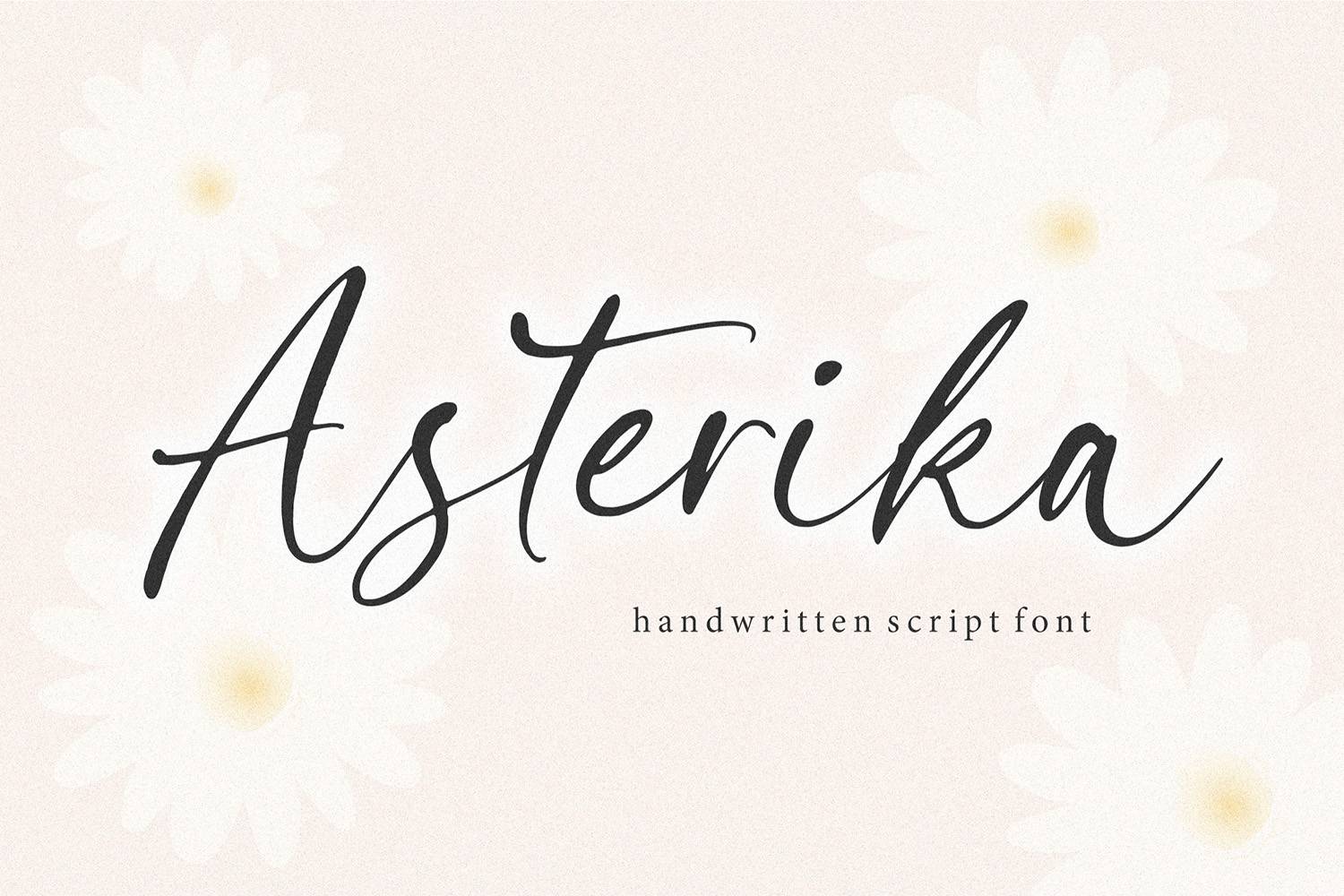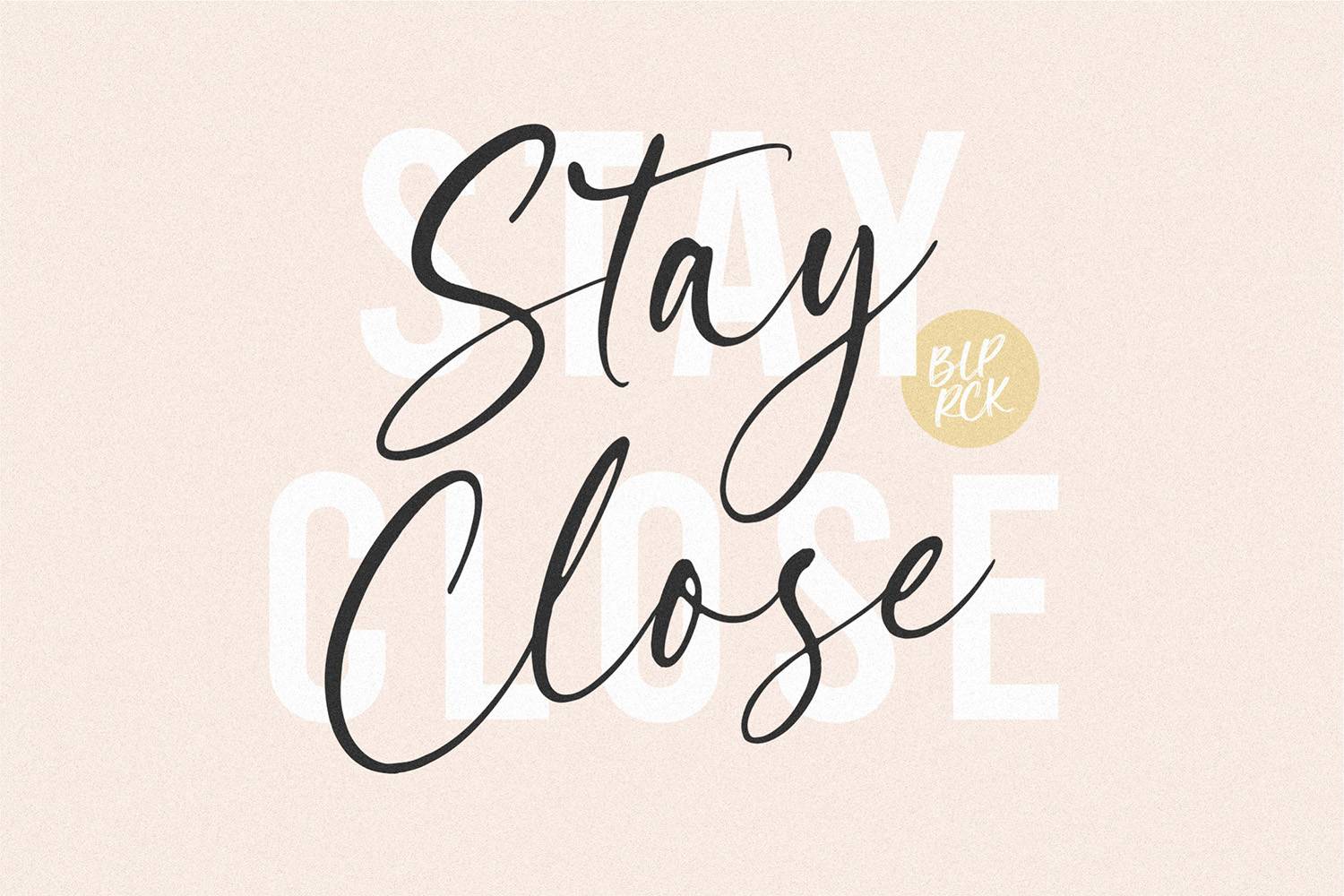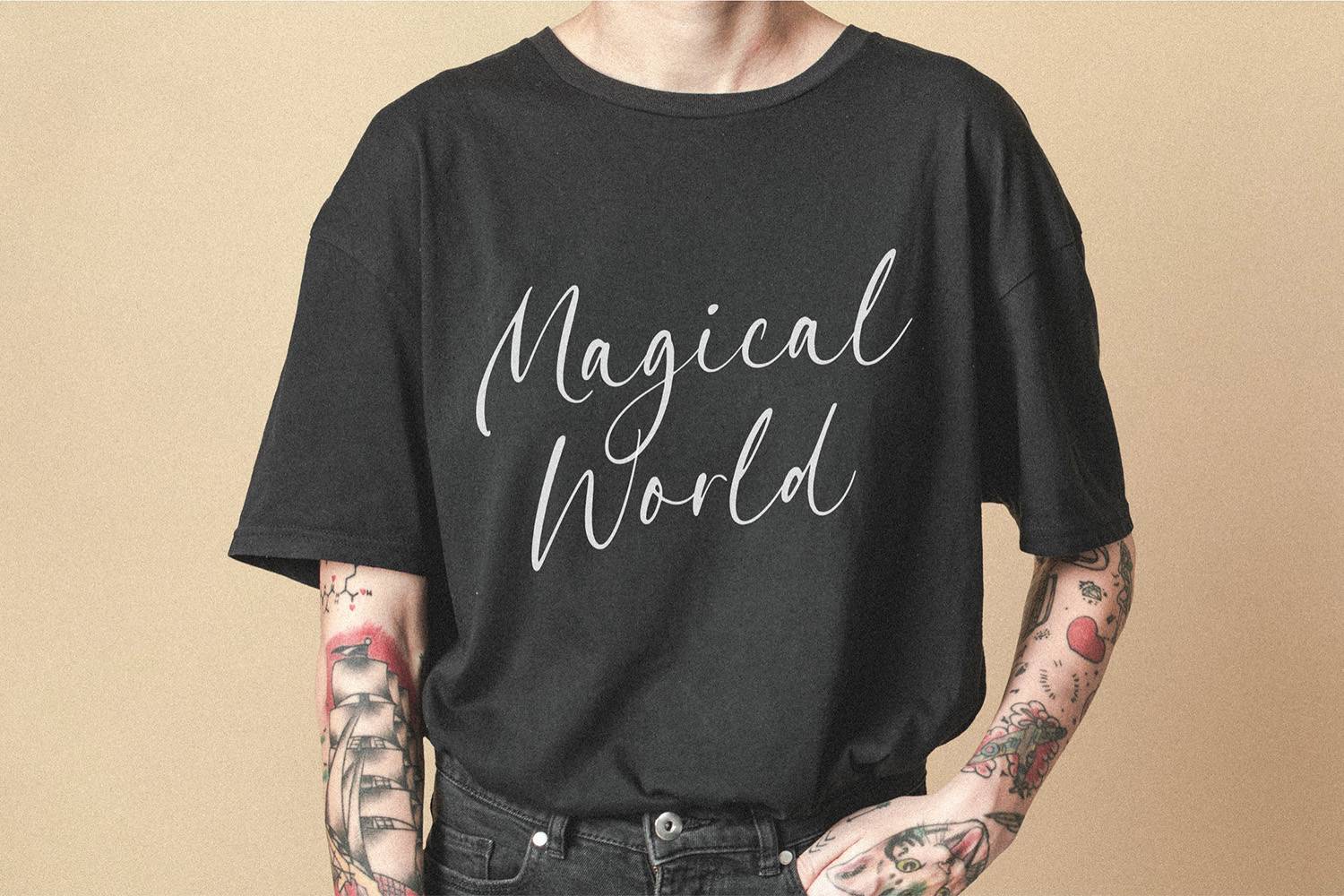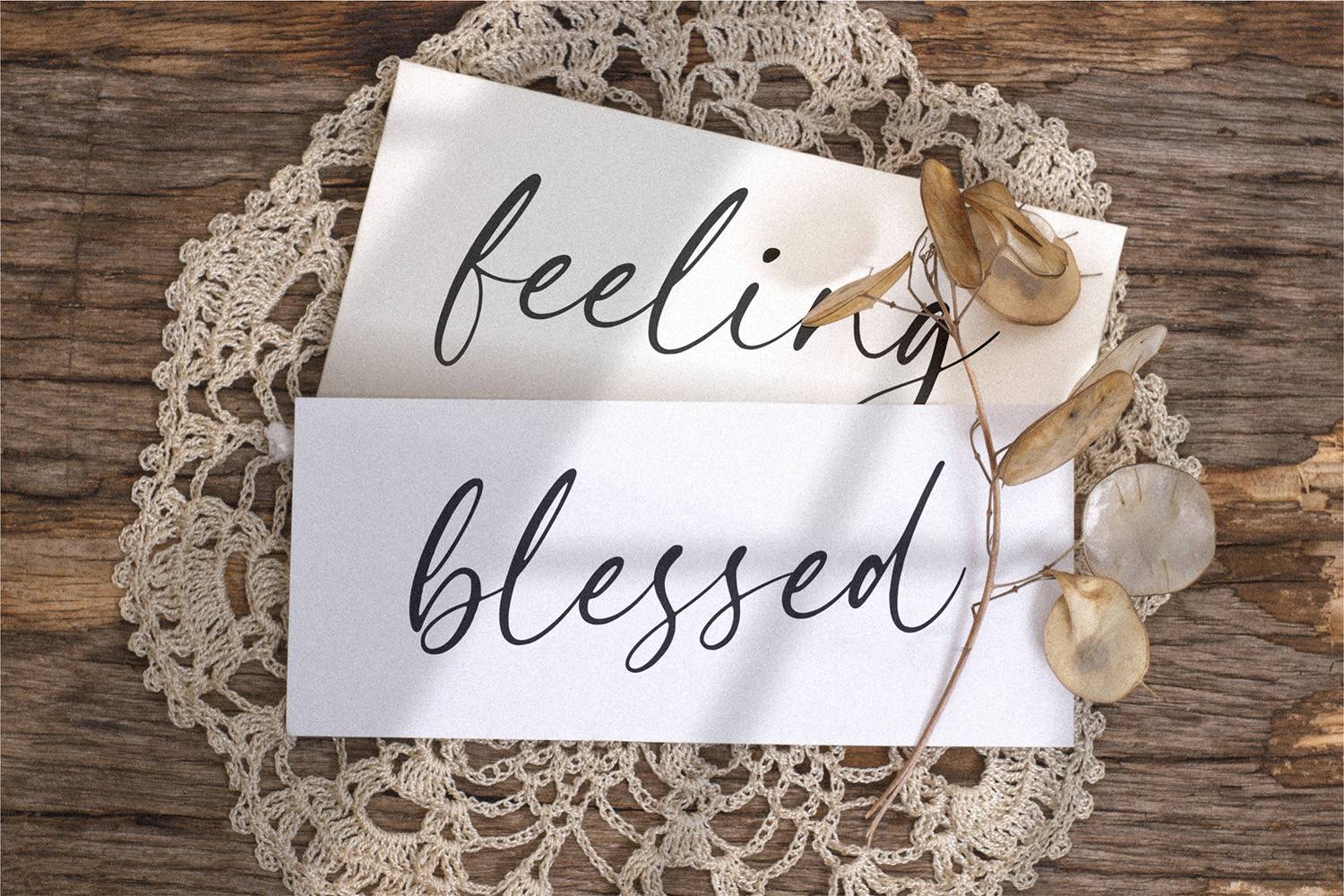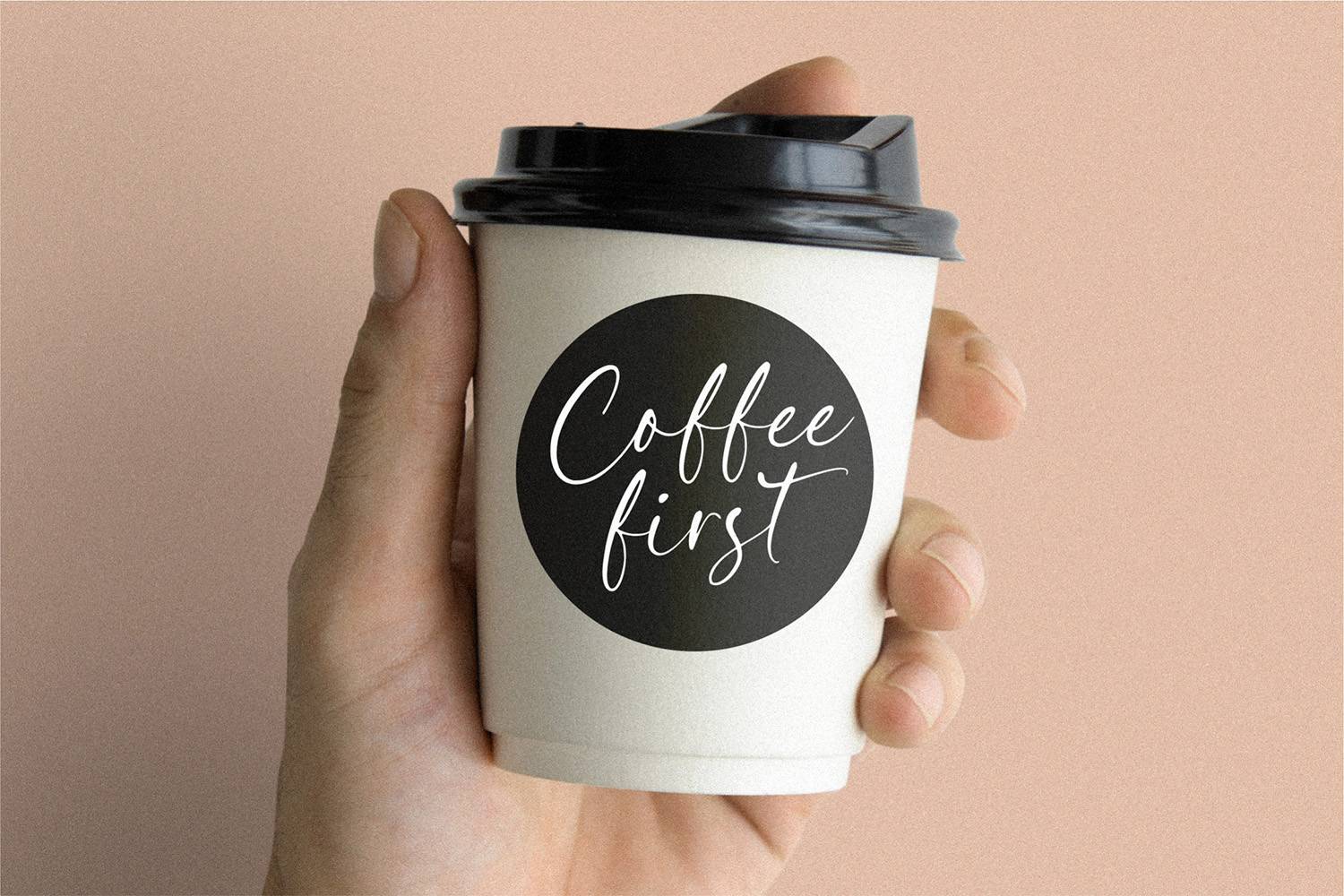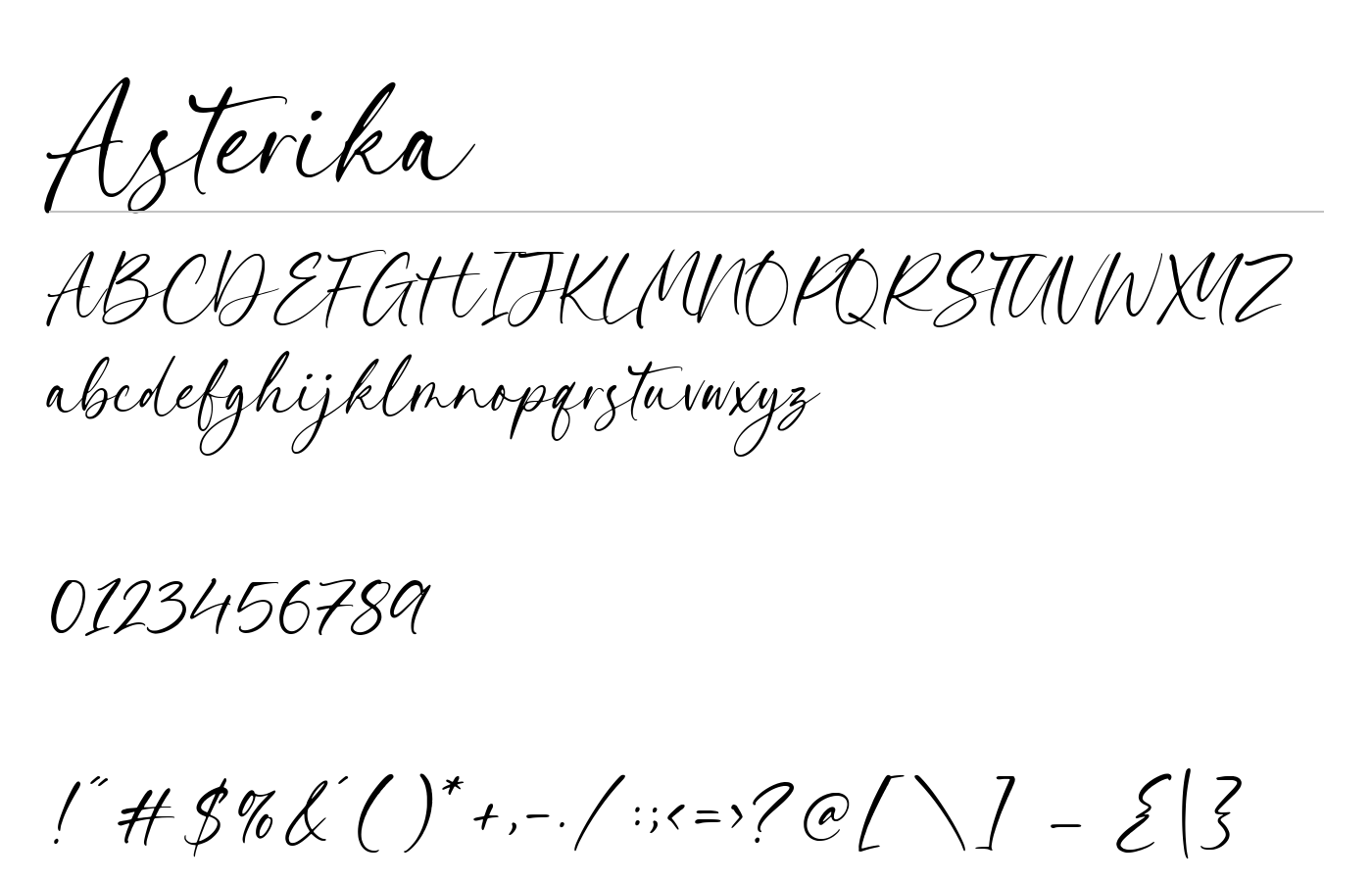
Asterika is an elegant, handwritten script font featuring a graceful, flowing style with thin, delicate strokes that give it a light and airy feel. Its tall x-height and smooth curves make it ideal for adding a personal, sophisticated touch to branding, invitations, and stylish editorial projects. Perfect for designs that want to convey warmth and creativity with a refined yet approachable look.
Asterika Font
About Asterika Font